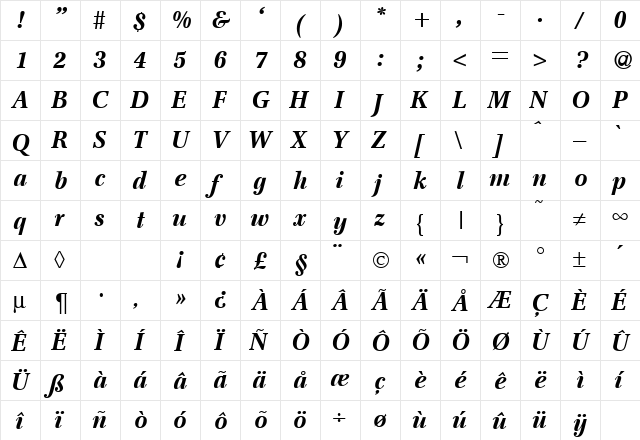
FranklinSerif BoldItalic Font Preview
FranklinSerif BoldItalic
FranklinSerif BoldItalic Font Details
Design Context for FranklinSerif Typeface
FranklinSerif carries the refined structure of traditional serif typography, with bracketed terminals and considered proportions that communicate credibility and craft. The dynamic lean of this cut emphasises speed and emphasis in any layout. Its bold stroke weight gives it real presence on the page.
Pro Tip: Set FranklinSerif with slightly loose tracking in headlines to let each letterform's detail read clearly at display sizes.